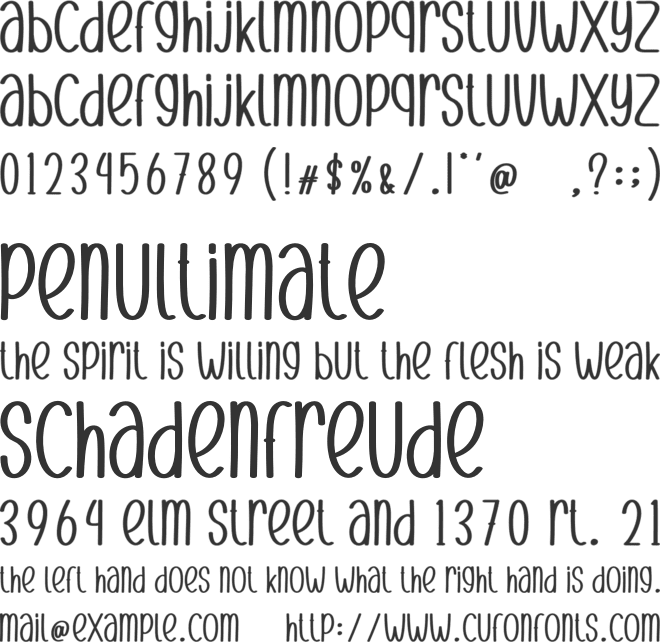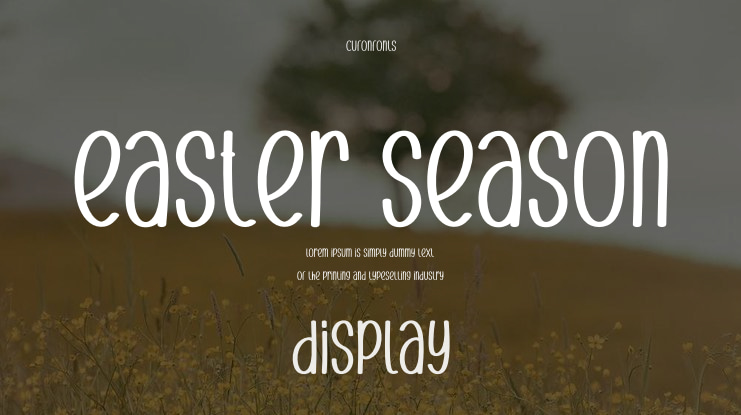
Easter Season Font
This delightful and friendly handwritten display font is both cute and fun. It's perfect for creating wedding invitations, cards, or any other design that requires a playful touch!
Easter Season font preview